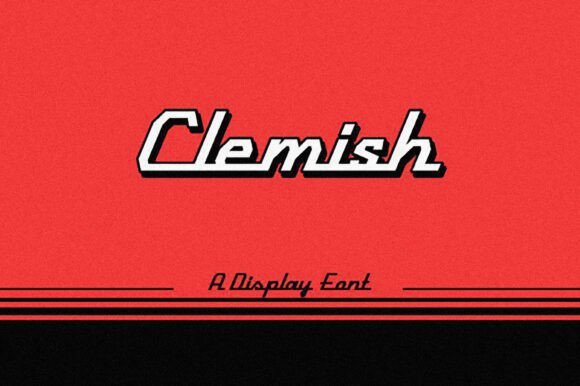
Introduction to Clemish Font
Clemish is a stylish script font that blends classic elegance with a retro-futuristic vibe.
Its flowing letters and unique shapes give a sense of nostalgia while still feeling modern Perfect for creating eye-catching designs, Clemish is great for posters, invitations, and any project that needs a touch of charm and personality.